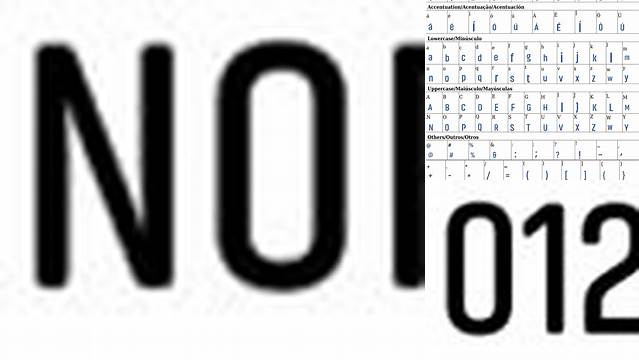
Akhand Soft Semibold Font Free Download: Your Ultimate Guide
Hey there, font enthusiasts! Are you on the hunt for a versatile, stylish, and, most importantly, free font? Well, look no further! Akhand Soft Semibold might just be the perfect fit for your design needs. In this article, we'll dive deep into the Akhand Soft Semibold font, providing you with everything you need to know, including where to download it for free, how to use it, and some creative ways to incorporate it into your projects. So, let's get started, shall we?
What is Akhand Soft Semibold Font?
Alright, let's get down to the basics, guys. Akhand Soft Semibold is a modern and clean sans-serif font. It's part of the larger Akhand font family, known for its readability and contemporary aesthetic. The "Semibold" designation tells us the weight of the font, falling between regular and bold. This makes it a fantastic choice for various applications, from headings to body text, and everything in between. It's designed to be easily readable on screens and in print, which is a huge plus. The font’s soft curves and balanced proportions give it a friendly yet professional feel. Think of it as the Goldilocks of fonts: not too bold, not too light, but just right. This balance makes it incredibly versatile, adaptable to various design styles and projects. Its clean lines contribute to its modern appeal, ensuring that your text will look contemporary and stylish. So, whether you're designing a website, creating marketing materials, or simply looking for a new font for your personal projects, Akhand Soft Semibold is worth considering. This font isn't just about aesthetics; it's about functionality and usability. The readability factor is particularly important. You don't want a font that strains the eyes or makes your audience struggle to understand your message. Akhand Soft Semibold addresses this by ensuring that each character is clearly defined, promoting effortless reading. This is super important for any project aiming to communicate information effectively. In short, it's a well-rounded font that combines visual appeal with practicality, making it a valuable asset for any designer or creative professional. It’s designed to grab attention and create a lasting impression. With its adaptable nature and easy-to-read characteristics, it proves to be a perfect choice for those looking to add a touch of sophistication to their work without losing clarity.
When we talk about Akhand Soft Semibold, several features immediately jump out. First and foremost, its clean and modern design. This ensures your text looks up-to-date and visually appealing. The font’s semibold weight strikes the perfect balance, providing enough emphasis without being overly assertive. This makes it incredibly versatile for various uses. Readability is another key feature. The designers have carefully crafted each character to maximize clarity, making it easy for readers to digest your content. That’s crucial for any design project where communication is key. Akhand Soft Semibold also offers a wide range of characters, including various symbols and glyphs. It enhances the font’s flexibility, allowing you to use it in different languages and specialized design projects. This makes it an excellent choice for projects that require multilingual support or unique design elements. Its versatility is truly its standout feature. The font adapts well to various design styles, whether you are creating a minimalist website or a vibrant marketing campaign. The clean lines and balanced proportions ensure that the font complements any design, making it an ideal choice for both professional and personal projects. Its design is not just about looking good; it’s about enhancing user experience. The font's balance between visual appeal and readability ensures that your audience will engage with your content without any visual strain. This is particularly vital in today’s digital world where users are easily distracted and overwhelmed with information. The font’s key characteristics are not only about aesthetics but are deeply rooted in functionality and usability. The design promotes effective communication by providing a seamless reading experience. This is a must-have for any designer seeking a reliable and stylish font that delivers on all fronts. The adaptability of the font makes it suitable for various media, including digital screens and printed materials. It ensures consistency and brand recognition across all your communications.
Design Tips and Best Practices with Akhand Soft Semibold
Alright, let's get creative! Here are some design tips and best practices for using Akhand Soft Semibold to its full potential. First, think about hierarchy. Use the font's semibold weight for headings and subheadings to create a clear visual structure. This helps guide the reader's eye and emphasizes key information. When you design, consider the size and scale of your text elements. Use larger font sizes for headings and smaller sizes for body text to establish a visual hierarchy. Also, keep in mind readability. Make sure there's enough contrast between your text and the background. Also, ensure there's enough space around your text to improve readability. This reduces clutter and improves the overall aesthetic. Consider the overall layout of your design. A well-structured layout with balanced elements is essential for creating a visually appealing and functional design. Think about the colors you are using. Choose a color scheme that complements the font and the overall message of your design. Make sure there is a strong contrast between the text and the background, this will allow for better readability. When designing, make sure your layout is consistent. Use the same font size, weight, and style throughout your design. This creates a cohesive and professional look. Pair Akhand Soft Semibold with other fonts to create visual interest. The best combinations are often a sans-serif font for headings and a serif font for body text. But, experiment to see what works. Using white space is the next tip. Giving your design enough white space (negative space) can prevent your design from feeling cluttered. White space makes your design easier to read and more visually appealing. Keep it simple! Don't overload your design with too much text or too many visual elements. Less is often more. Use the font in a way that reflects your brand. Incorporate your brand's color palette and overall style. This ensures consistency and strengthens brand recognition. Always test your design. After completing your design, review it on various devices to ensure it looks good on all platforms. Review your design with other people. Get feedback from others to make sure your design is effective and easy to understand. This will help you identify any areas for improvement. When using Akhand Soft Semibold, these tips can help you elevate your designs, ensure readability, and create a lasting impact.
Conclusion: Unleash Your Creativity with Akhand Soft Semibold